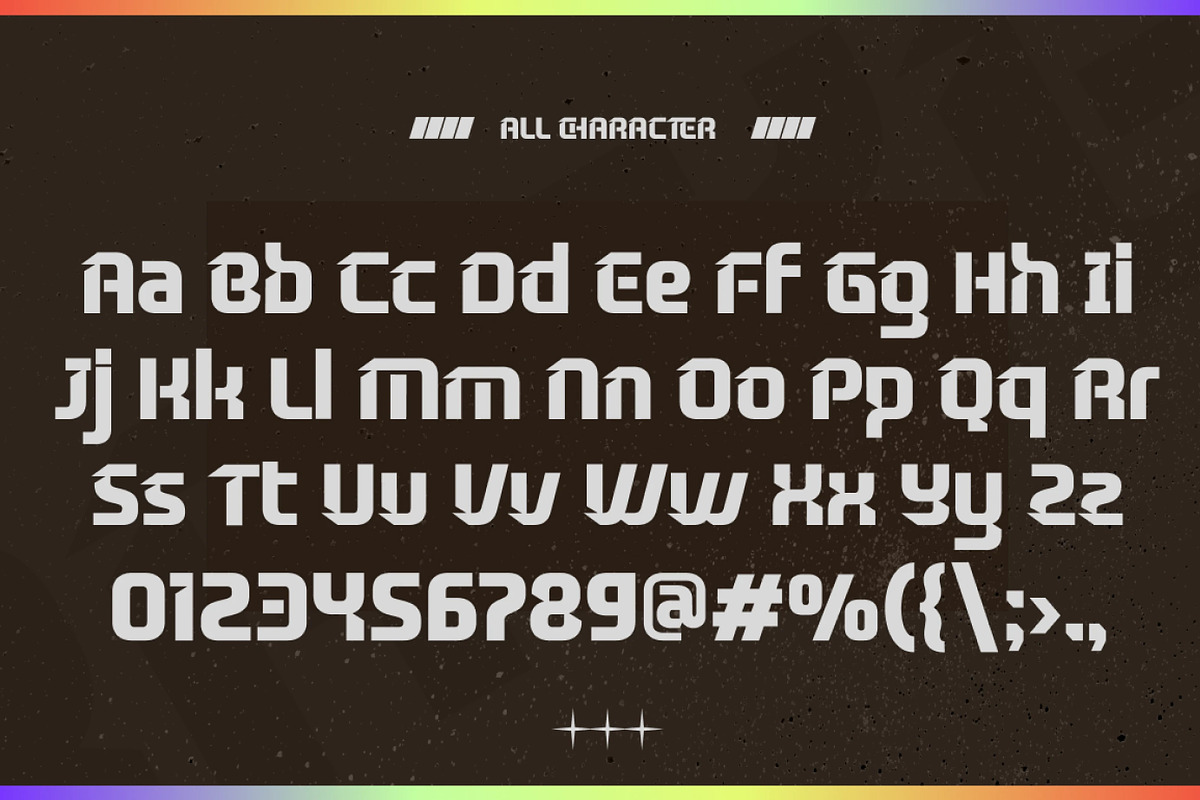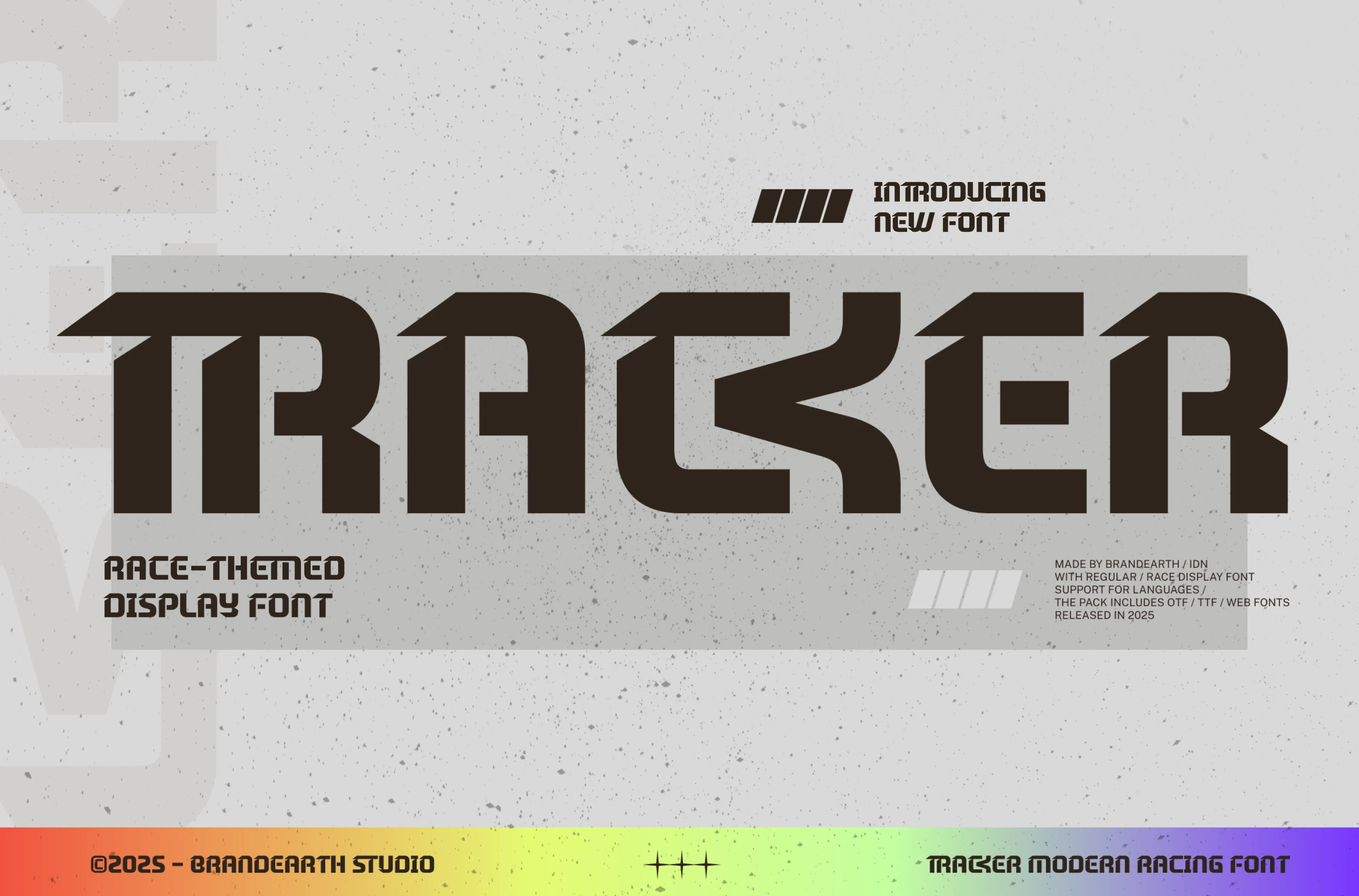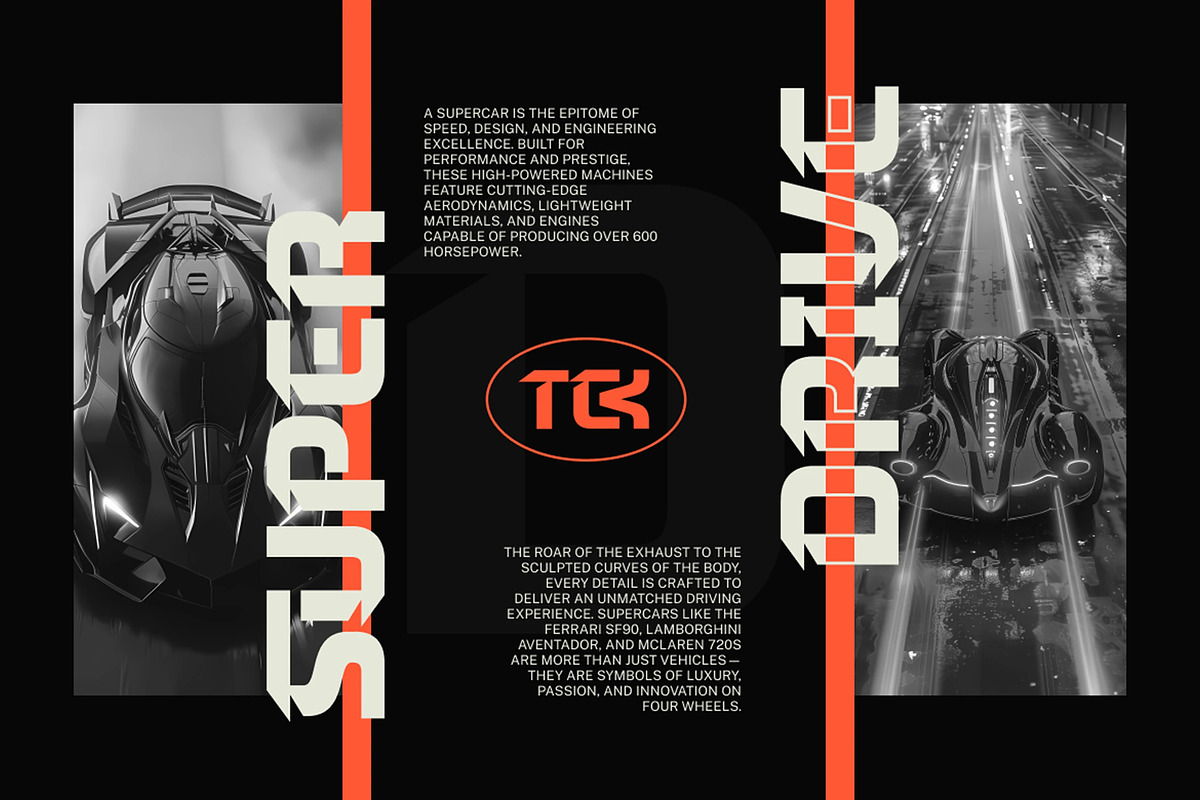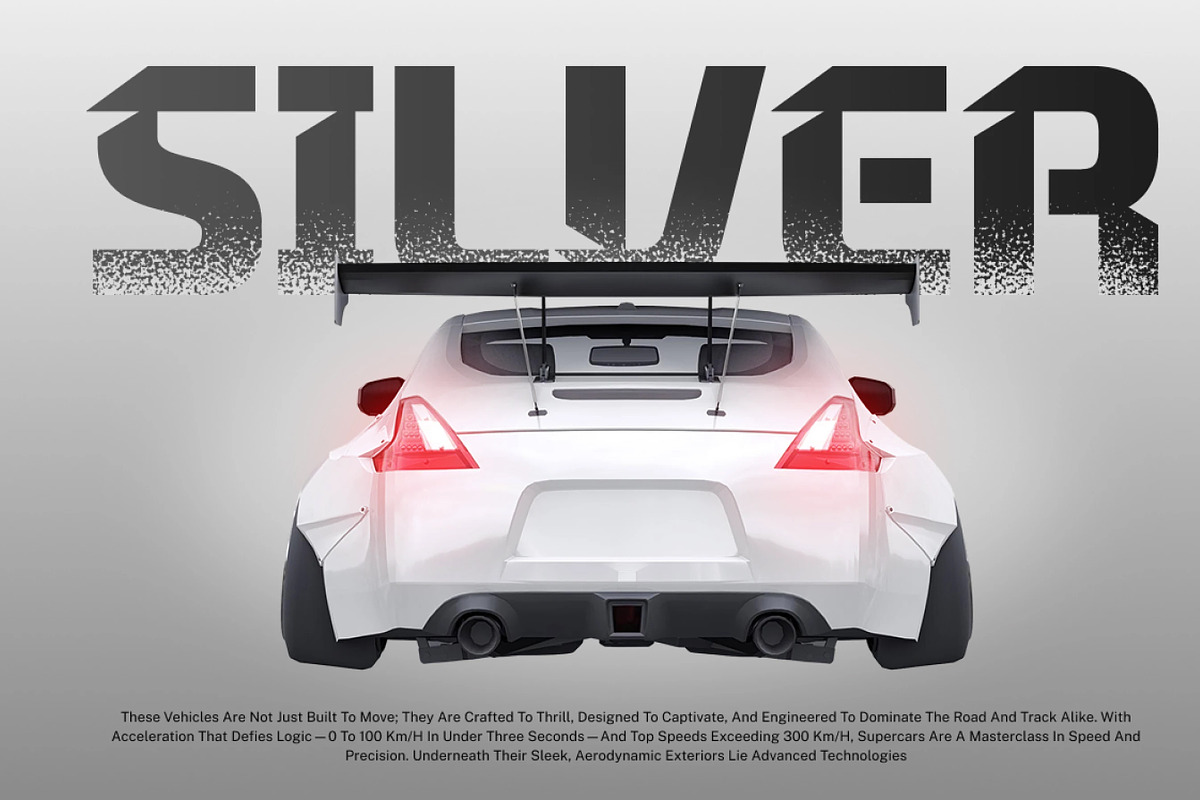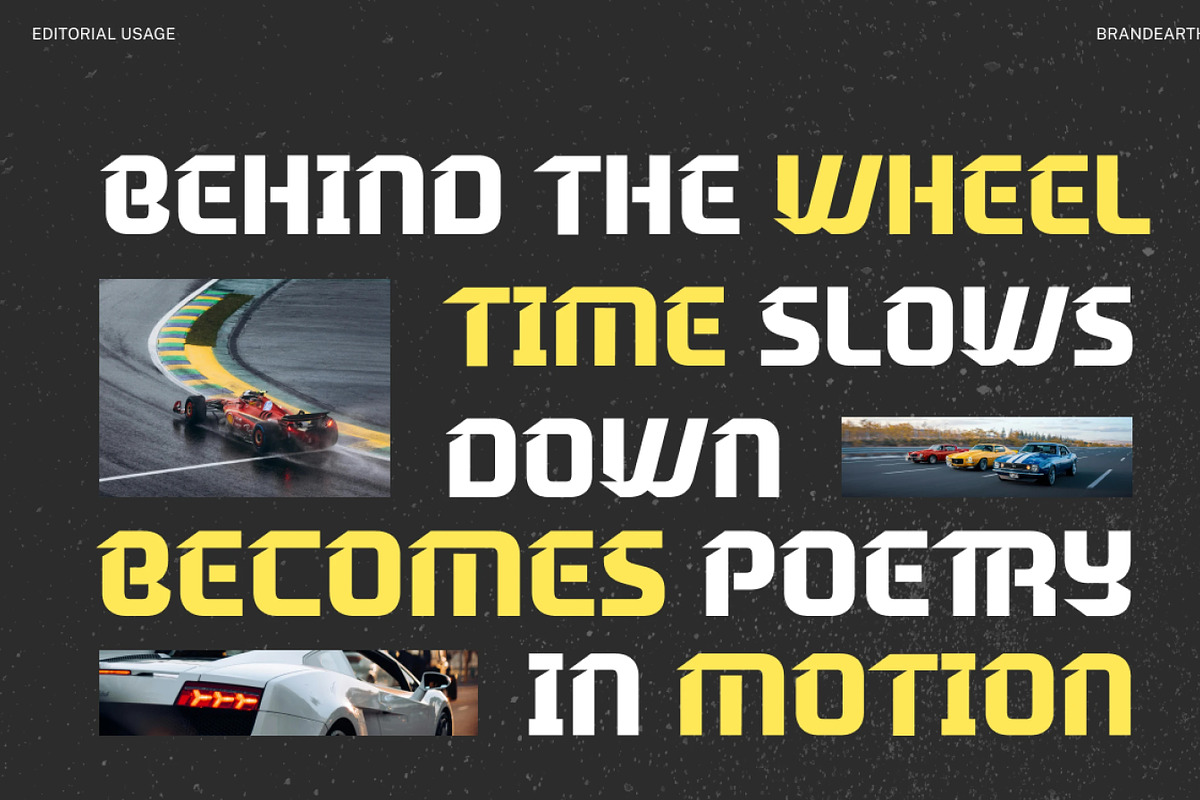
Tracker – Modern Racing Display Font
Tracker is a bold racing-inspired display typeface designed with sharp edges and dynamic cuts that capture speed, power, and motion. With its futuristic geometric design and industrial feel, Tracker is perfect for motorsport branding, esports logos, automotive advertising, and high-energy poster titles.
The font includes uppercase, lowercase, numerals, punctuation, and symbols, ensuring versatility for both print and digital use. Its modern condensed style gives a strong presence while maintaining legibility, making it a go-to choice for racing events, technology visuals, and modern bold graphics.
The letterforms in Tracker are built with sharp edges and dynamic cuts, creating a fast, aerodynamic rhythm that gives the typeface its bold, industrial character. It features a high-energy display quality that's perfect for motorsport branding, esports logos, and racing event graphics.
With its condensed structure and futuristic geometry, Tracker bridges the gap between raw speed and modern precision. It delivers a powerful, dynamic feel while remaining highly legible, making it ideal for automotive advertising, vehicle livery, and gaming graphics.